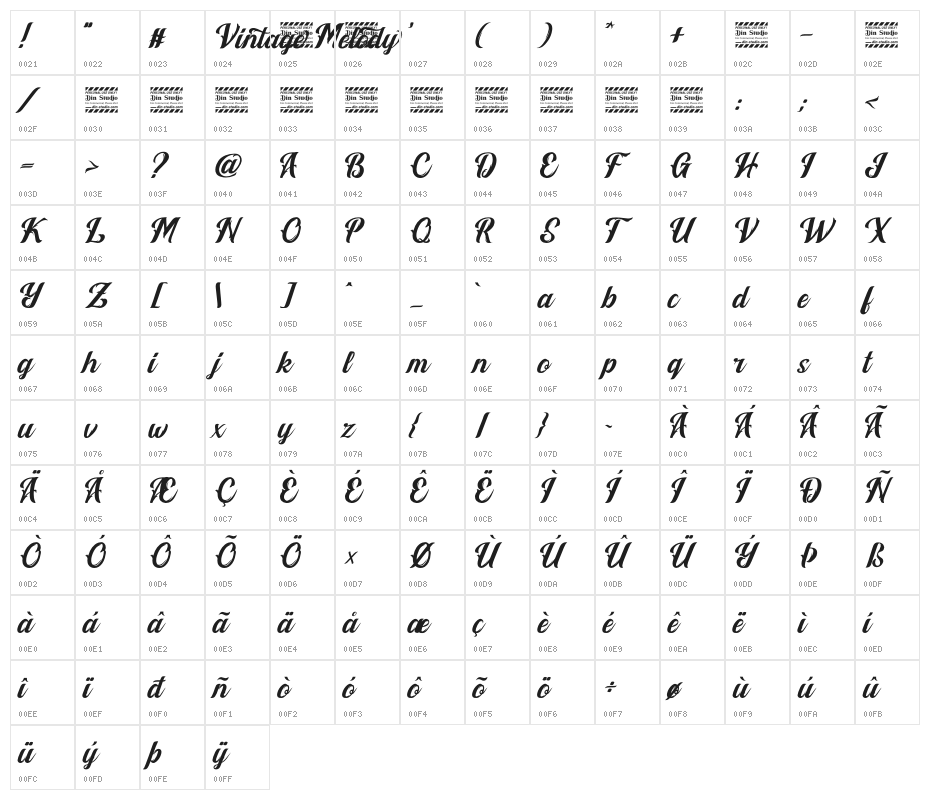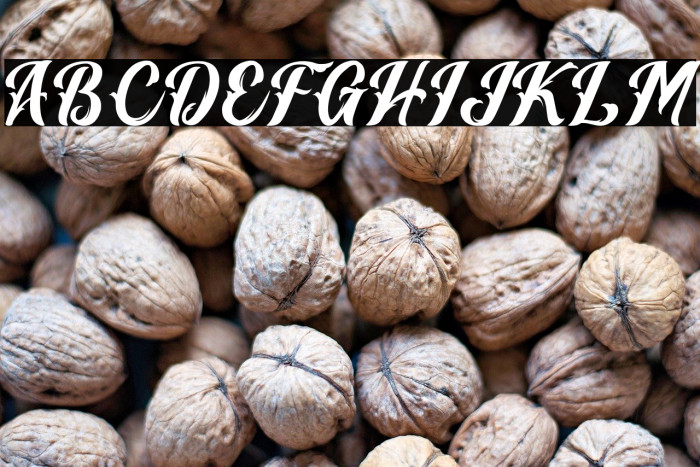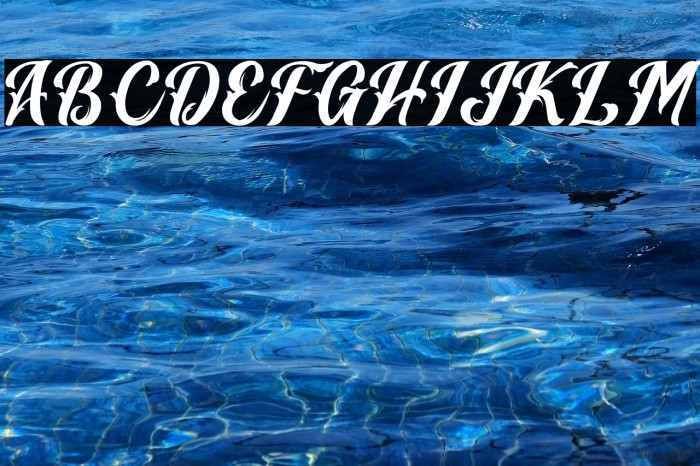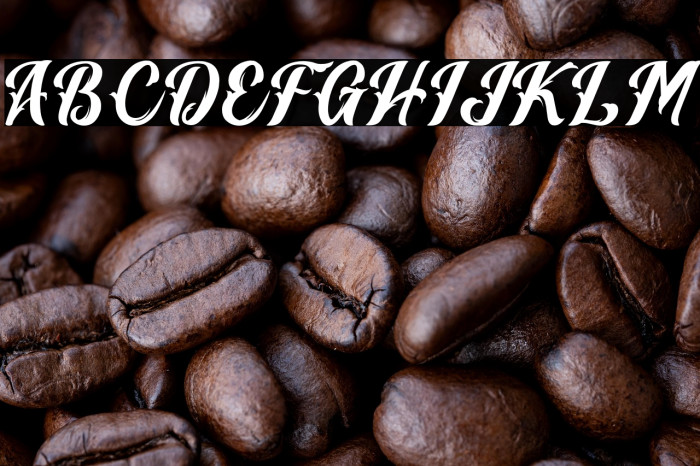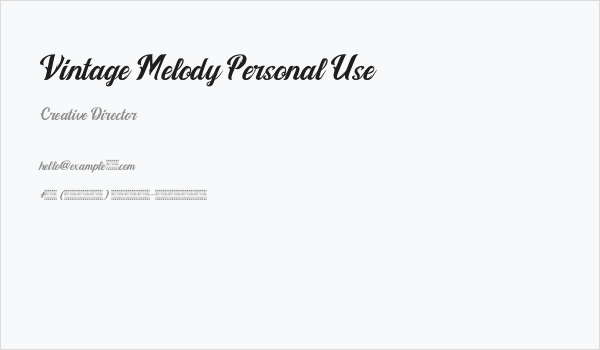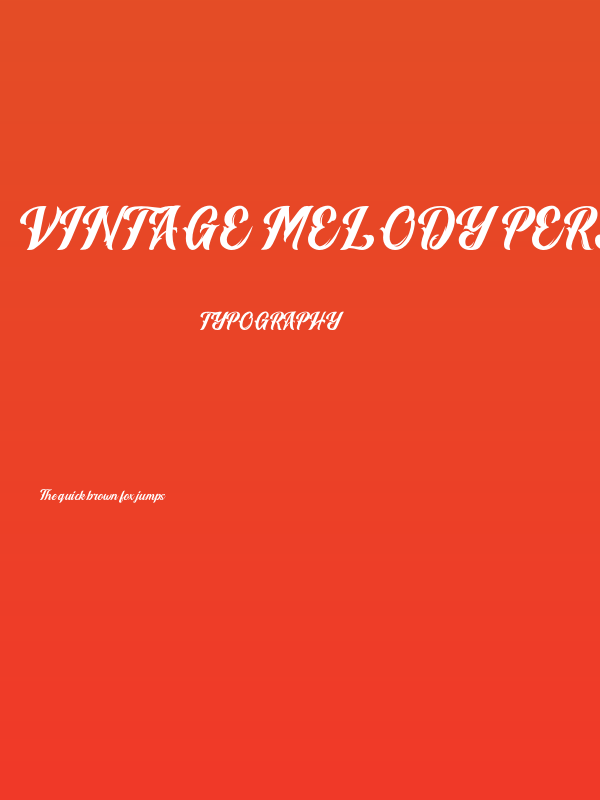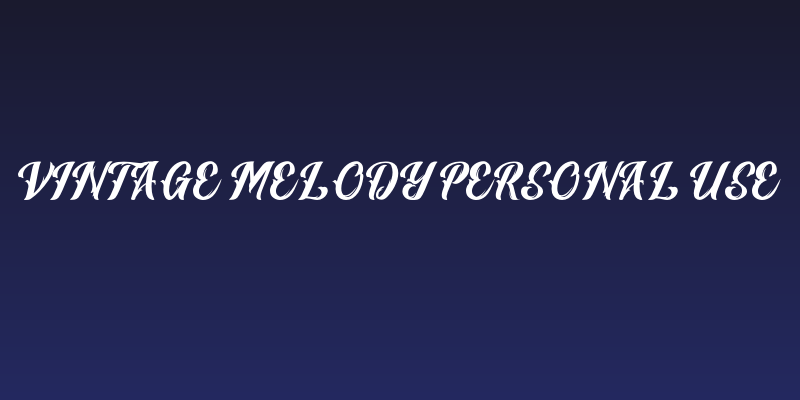
Vintage Melody Personal Use Font
Vintage Melody Personal Use Description
This font exudes a classic and elegant style, reminiscent of vintage calligraphy. The characters are beautifully crafted with flowing, cursive strokes that give a sense of movement and grace. The uppercase letters are bold and prominent, while the lowercase letters maintain a consistent flow, enhancing readability. The font includes a variety of special characters, adding versatility to its use. Its intricate design makes it suitable for projects that require a touch of sophistication and nostalgia.
| Proposed Projects | Ideal for wedding invitations, greeting cards, branding, and vintage-themed designs. |